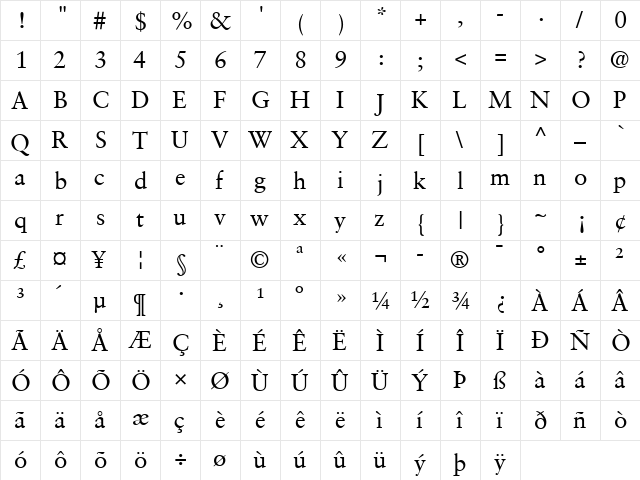
Sabon LT Regular
Design Context for Sabon LT Typeface
Sabon LT offers clean, dependable letterforms without strong stylistic allegiance, making it a practical choice for designers who need flexibility. The delicate stroke weight brings airiness and refinement to layouts.
Pro Tip: Pair Sabon LT with a font of contrasting weight or personality to build a more expressive typographic hierarchy.